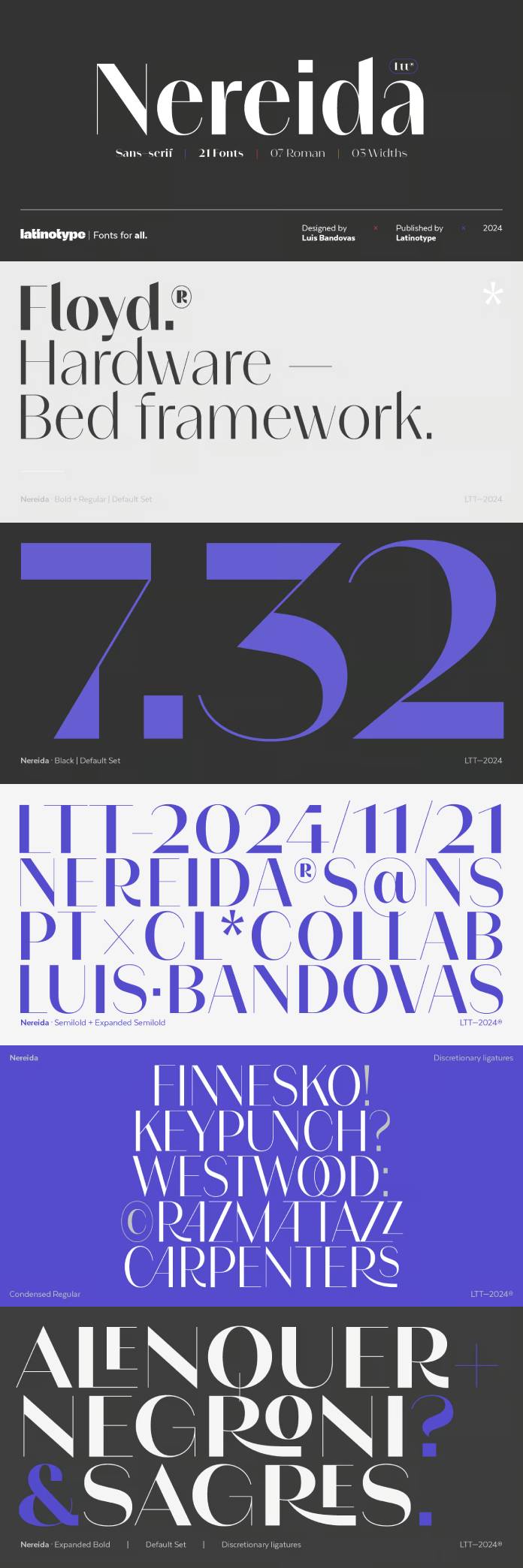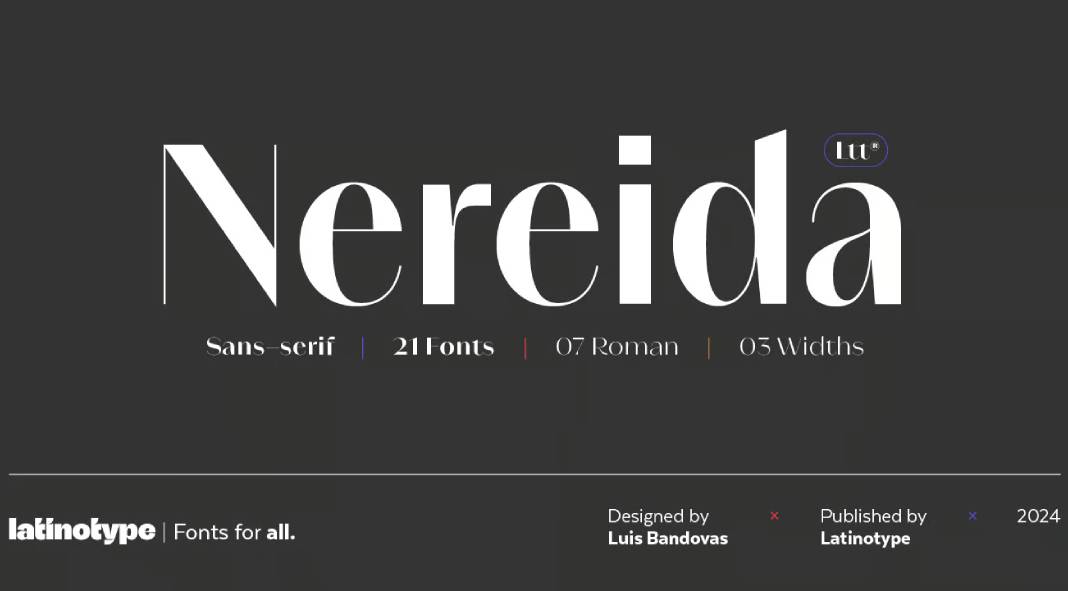
Unveiling Elegance: The Nereida Font Family by Latinotype
In the vast landscape of typography, where words dance on the canvas of creativity, the Nereida font family emerges as a delicate, luminous, and dainty masterpiece. Crafted by the talented designer Luis Bandovas, Nereida is not just a typeface; it is an expressive and versatile personality that breathes life into your words.
What sets Nereida apart is its high-contrast design, positioning it as the preferred choice for those seeking elegance in their typographic compositions. The typeface is a symphony of strokes and curves, delicately crafted terminals, and a set of attractive ligatures and initial letters that expand its range of use. Nereida is not merely a font; it is a distinctive typographic experience that invites you to explore the art of visual storytelling.
One of the standout features of Nereida is its generous x-height structure, ensuring exceptional readability in paragraphs of moderate length. It’s a font that not only catches the eye but also engages the reader with its clarity and sophistication. Whether you’re designing for magazines, headlines, logos, packaging, or beauty products, Nereida seamlessly adapts to the canvas, offering a touch of elegance that sets your project apart.
The versatility of Nereida is a testament to its unique ability to transmit messages with subtlety in short words and with force in longer text compositions. It doesn’t just decorate your words; it elevates them, giving each letter a personality of its own. Each stroke and curve of Nereida contributes to creating a visual experience that goes beyond mere text; it becomes an art form, adding a touch of sophistication and creativity to any project.
Imagine a magazine cover adorned with Nereida, capturing the essence of the content within with its graceful yet bold presence. Picture a logo designed with Nereida, standing out with an elegance that leaves a lasting impression. Envision packaging for beauty products, where every word is a brushstroke of refinement, thanks to the Nereida font family.
In the world of typography, where every detail matters, Nereida becomes the silent storyteller, weaving tales of grace and creativity through its carefully crafted curves. It is not just a font; it’s an experience waiting to unfold, a journey into the world of typographic artistry.